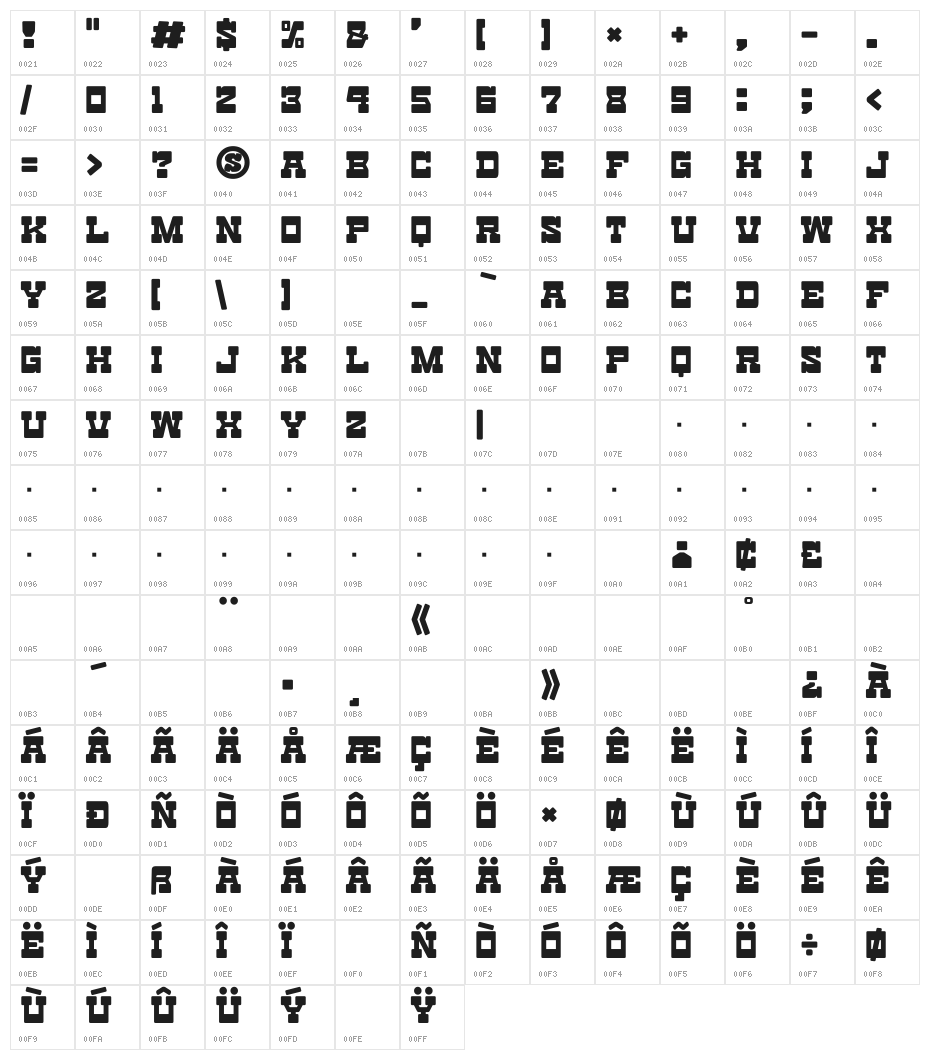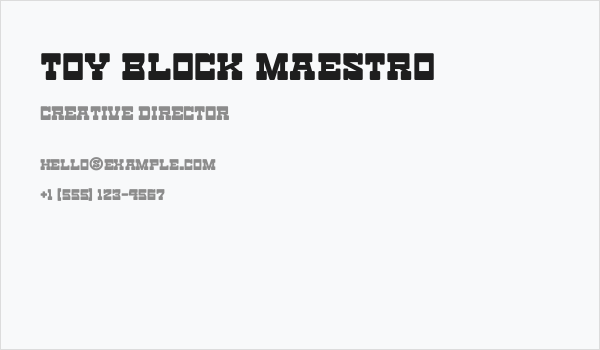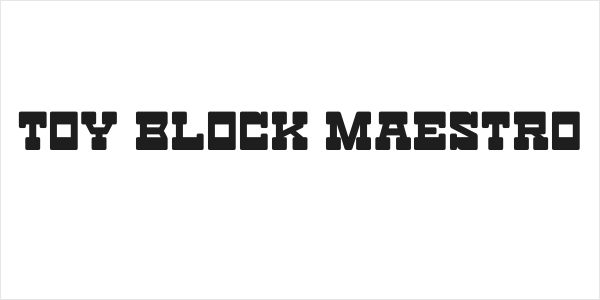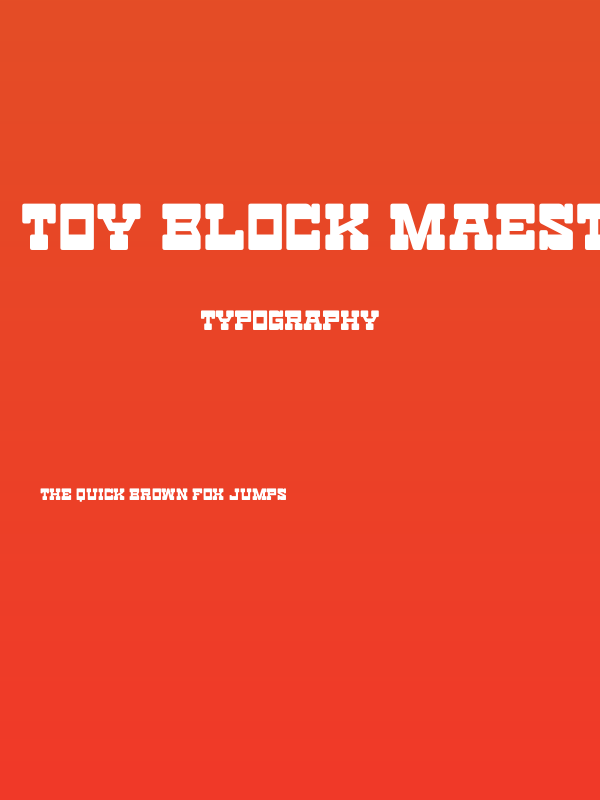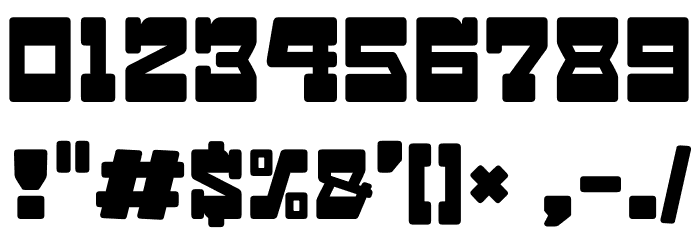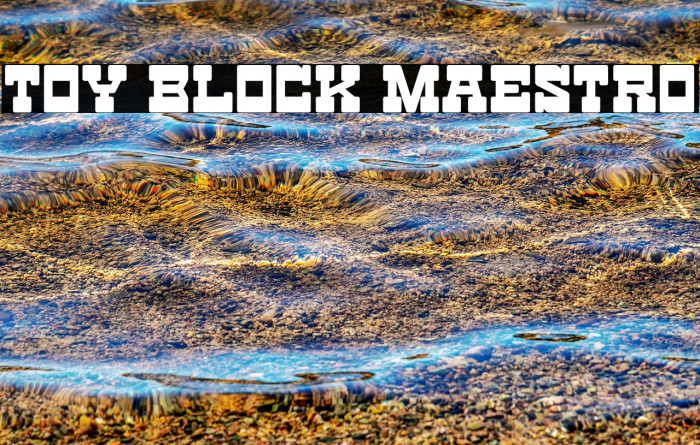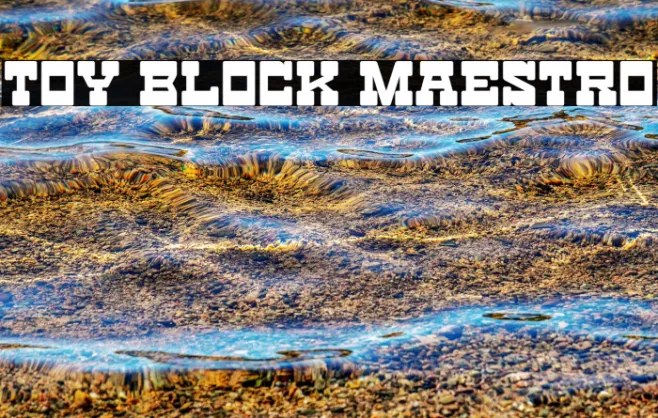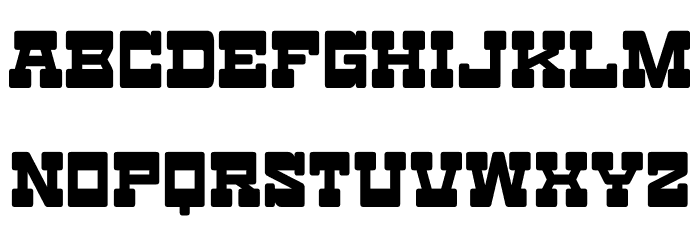
Toy Block Maestro Font
Toy Block Maestro Description
This font features a bold, blocky design with a playful and robust appearance. The characters are constructed with thick, uniform strokes, giving them a strong presence. The edges are slightly rounded, adding a touch of softness to the otherwise solid structure. This style evokes a sense of fun and creativity, reminiscent of toy blocks or playful signage. The font maintains consistent proportions across all characters, ensuring readability while retaining its distinctive style. The numerals and special characters are designed to match the boldness of the letters, making them suitable for various applications.
| Overall Style | Playful, Creative |
| Proposed Projects | Ideal for children's books, toy packaging, playful branding, and creative posters. |